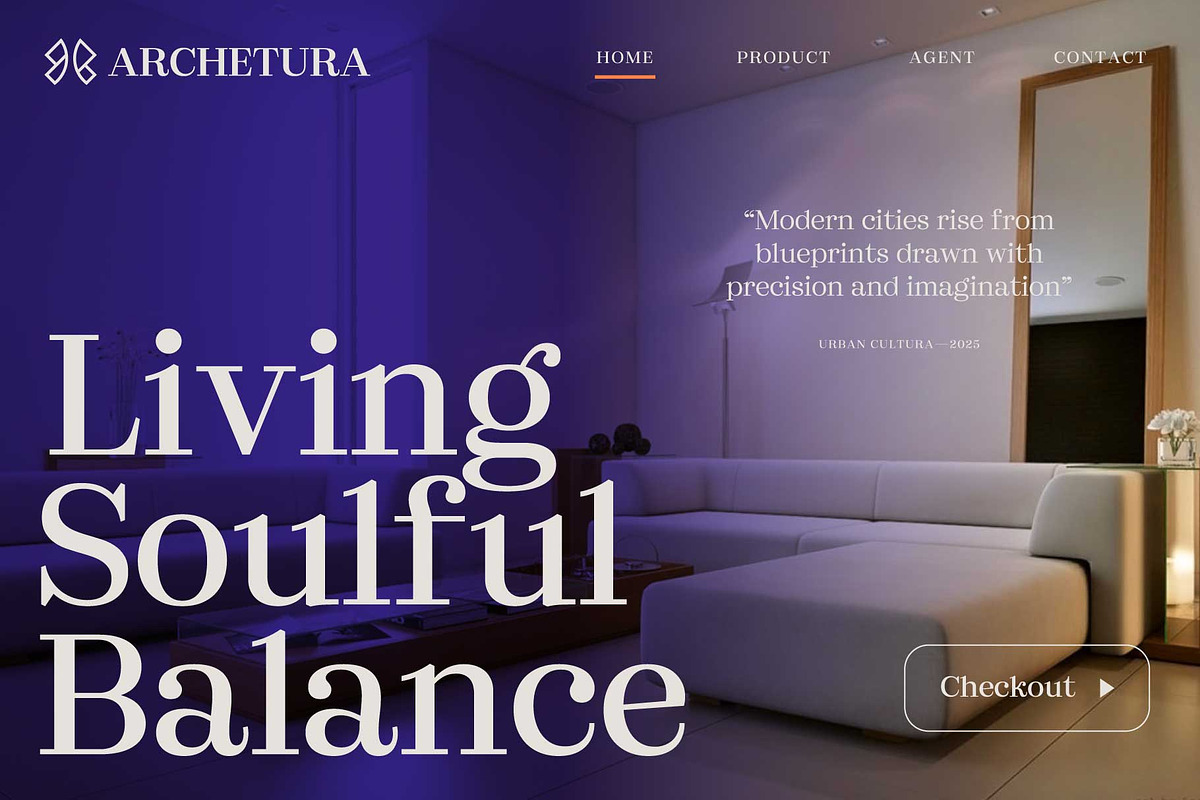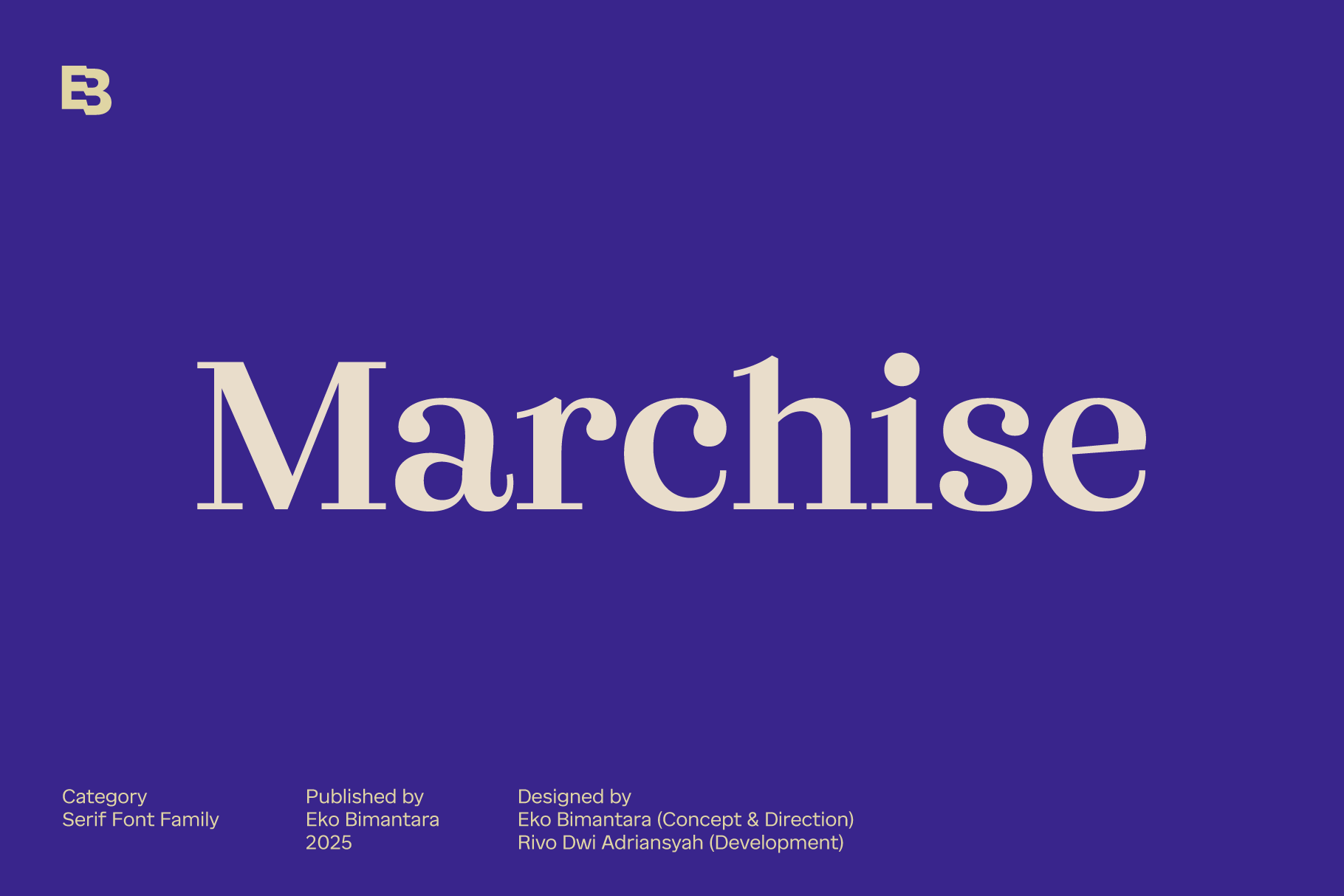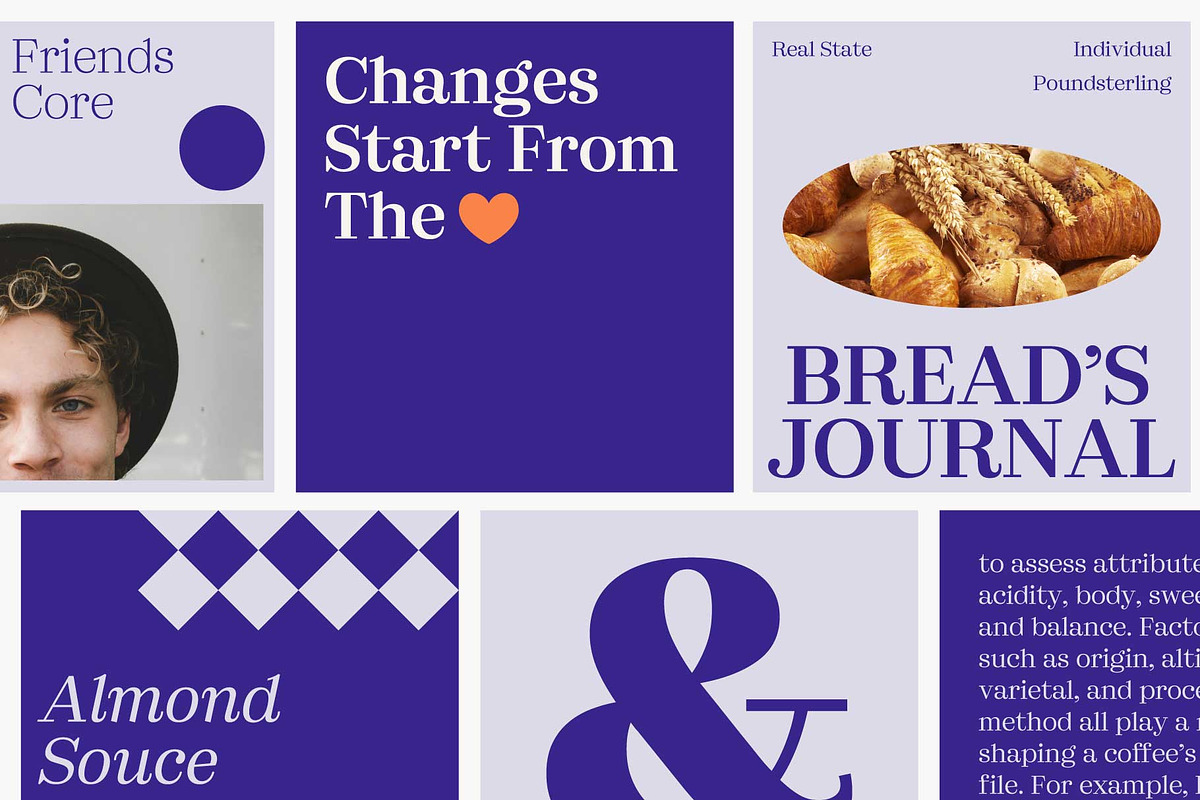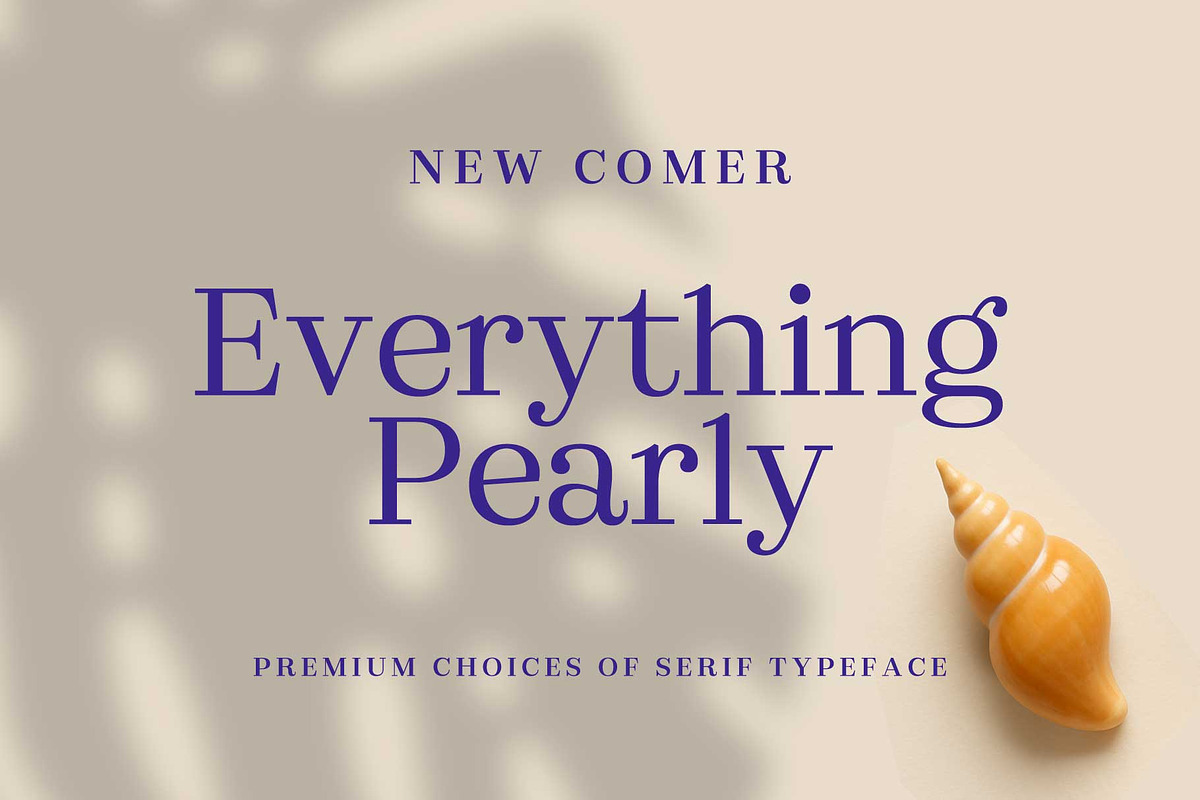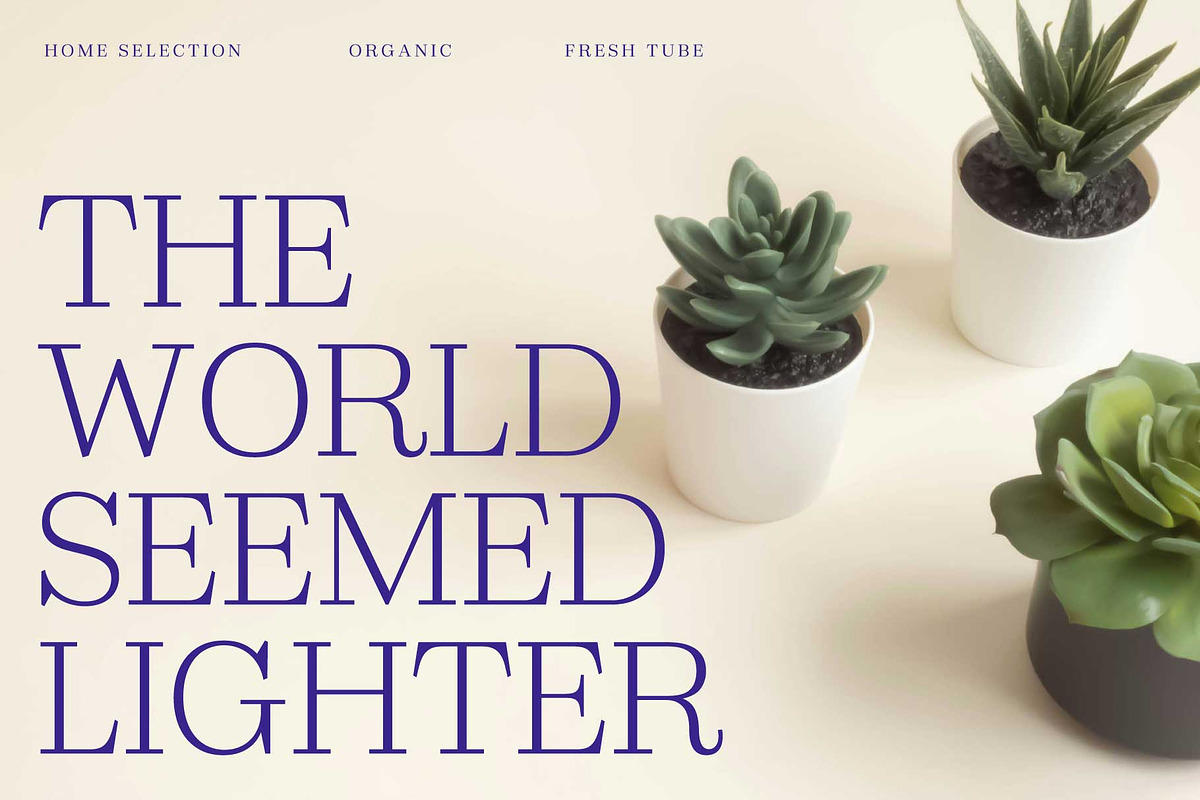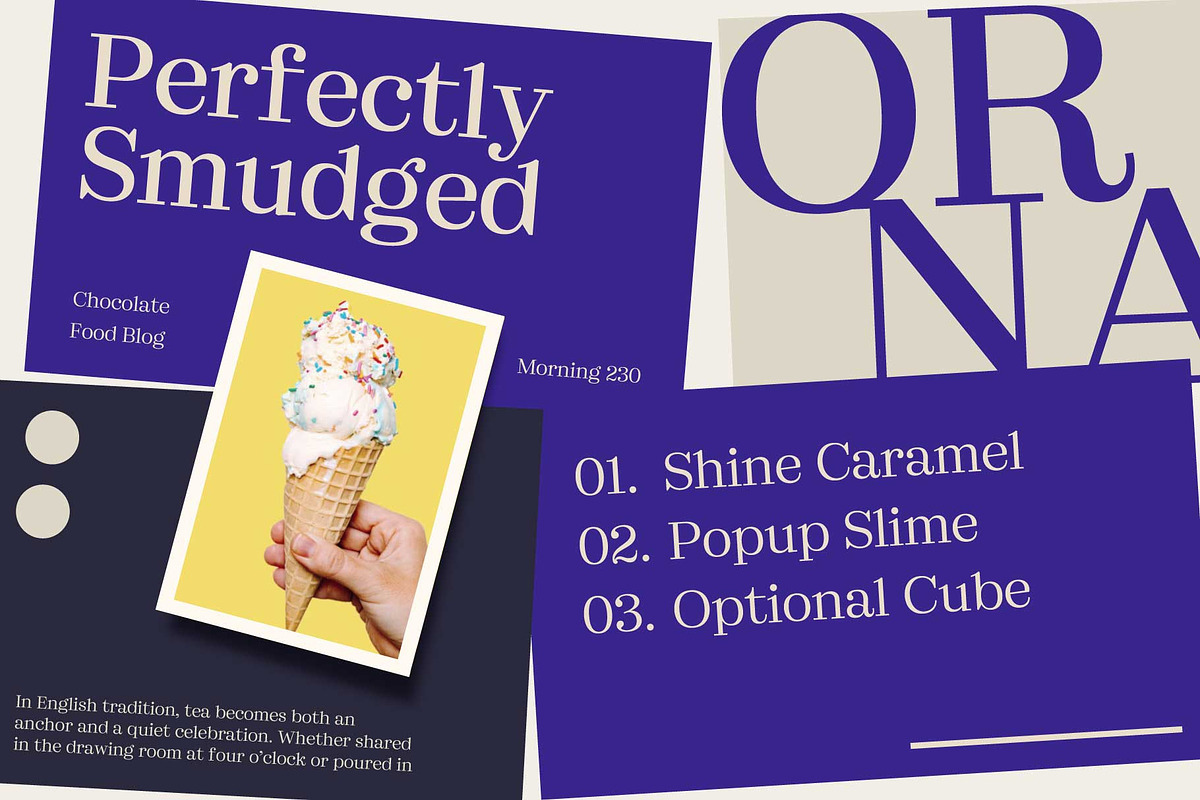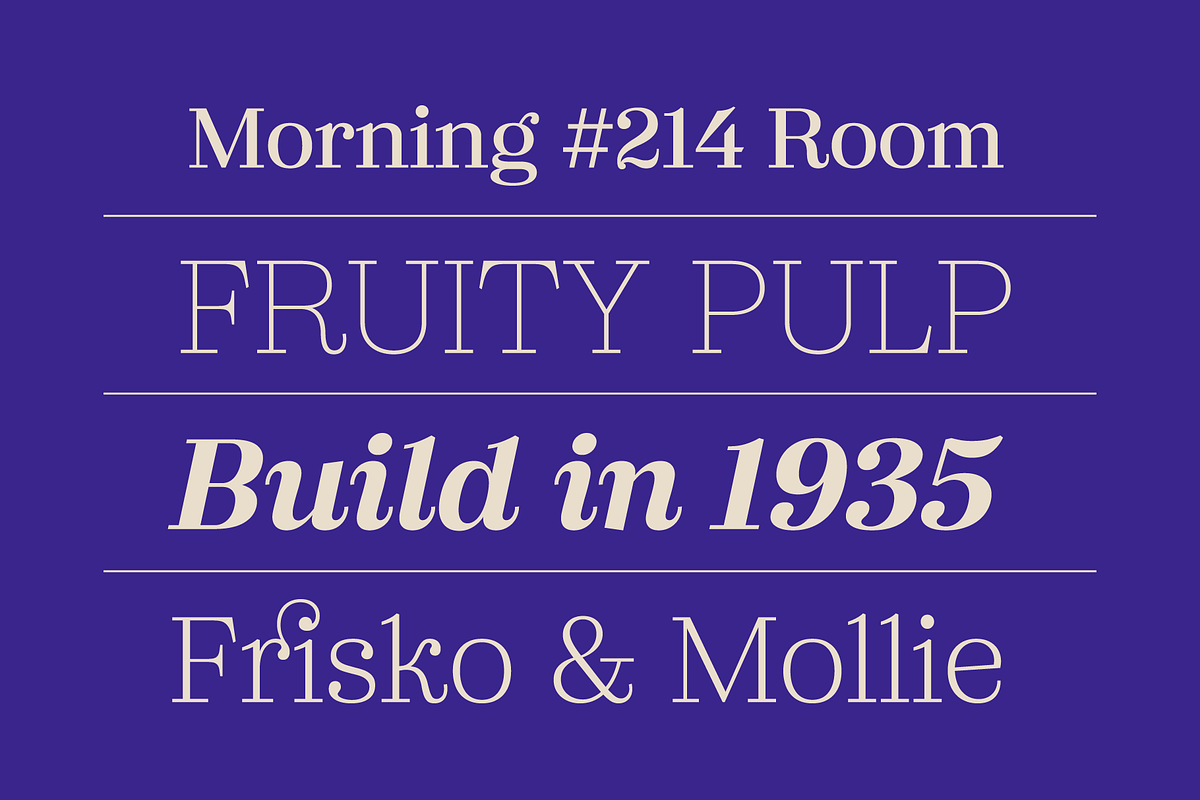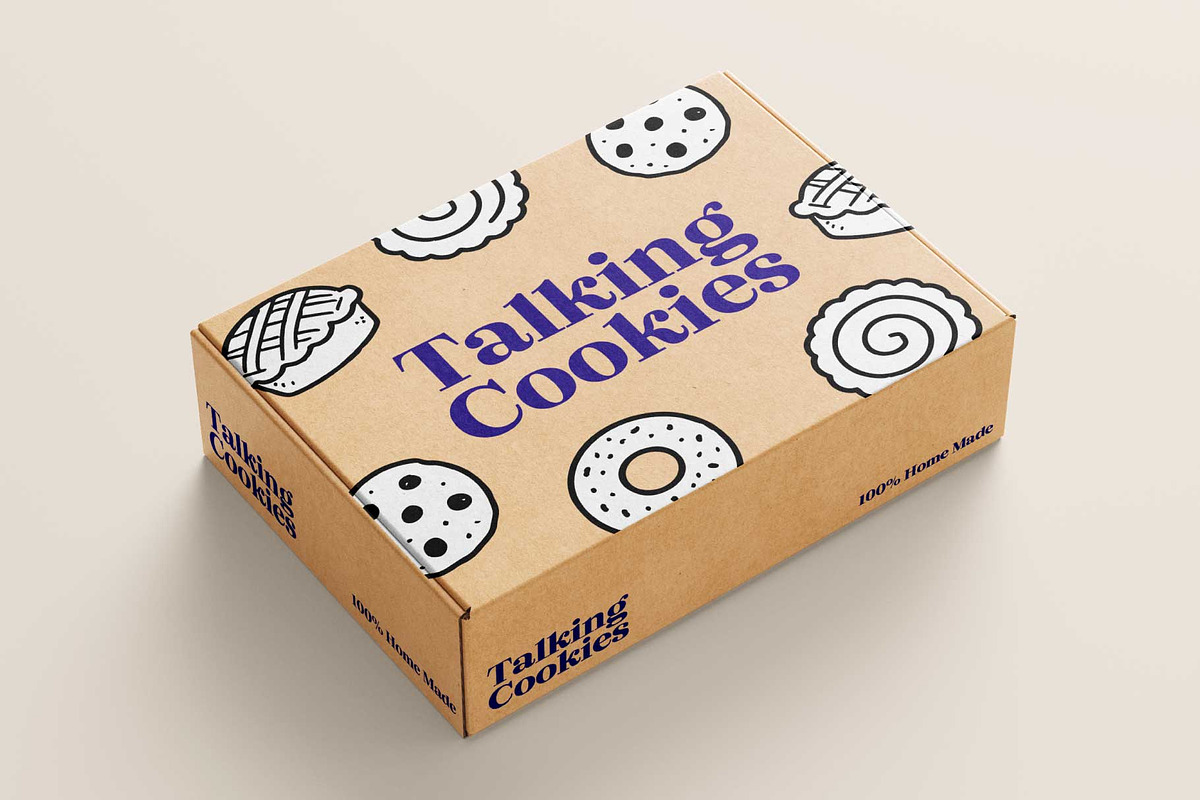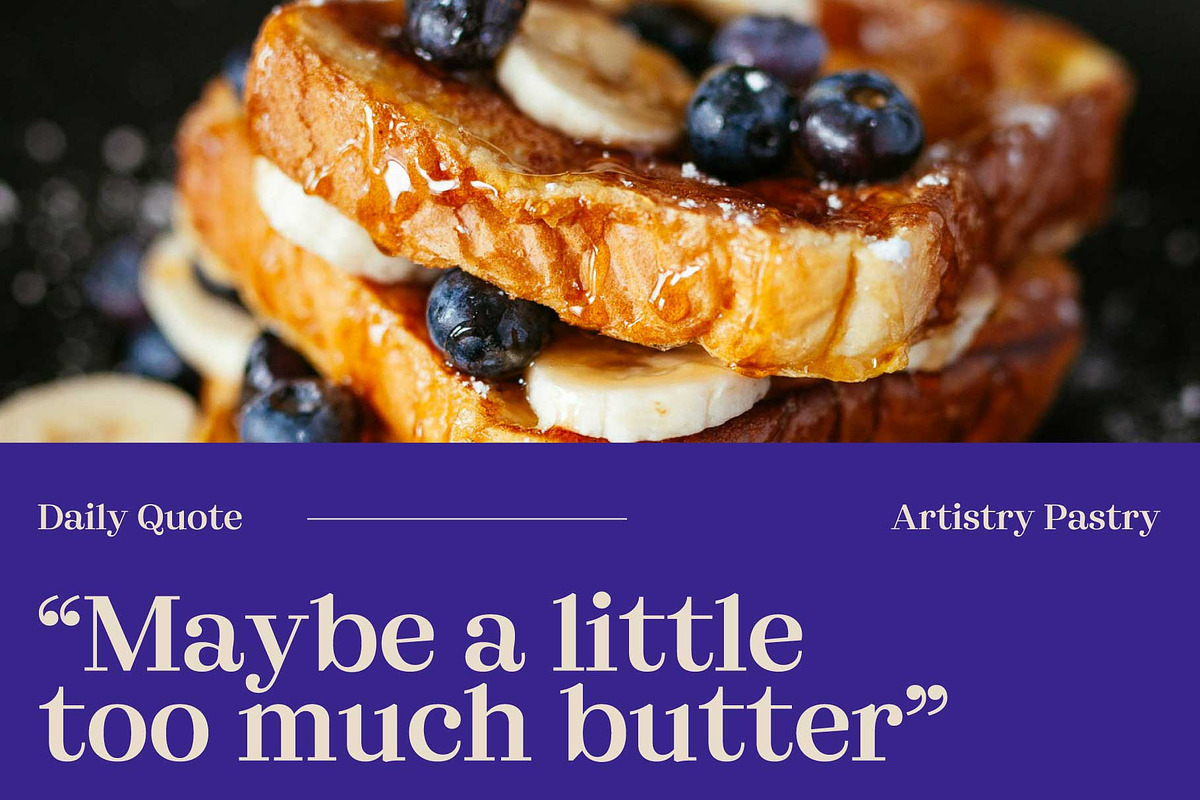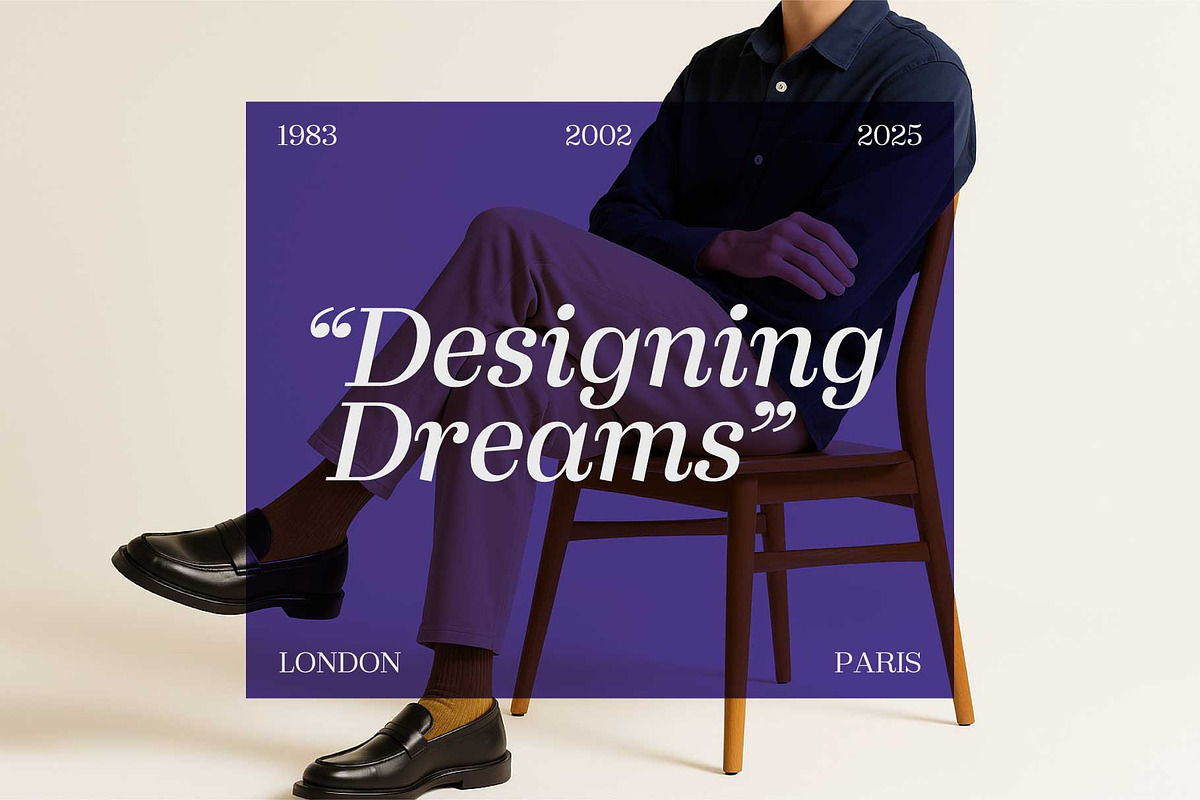
Marchise; 16 Classy Serif Fonts
Marchise is a high-contrast modern serif family with a flamboyant yet refined personality, offering 16 styles ranging from Thin to Black with matching italics. Its expressive and quirky details bring a unique character that stands out while maintaining professional versatility, making it an excellent choice for display use, short text, logos, brand identities, and product packaging across various themes and applications.